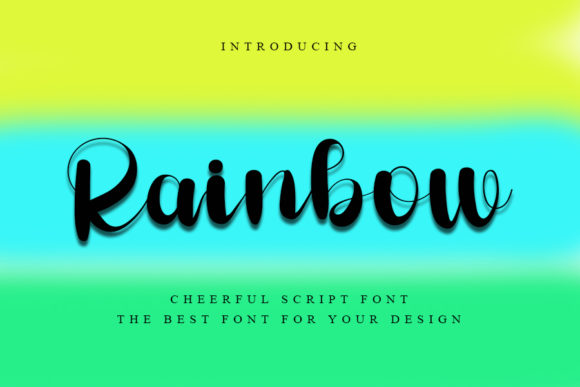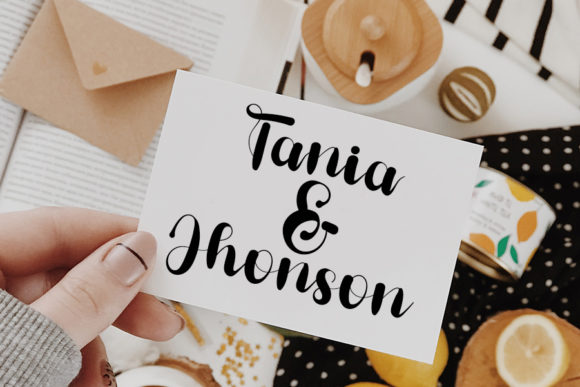
About Rainbow Font
Rainbow is a delicate and elegant handwritten font. Its distinct and well rounded letters make this font a masterpiece. Fall in love with its incredibly versatile style and use it to create spectacular designs!